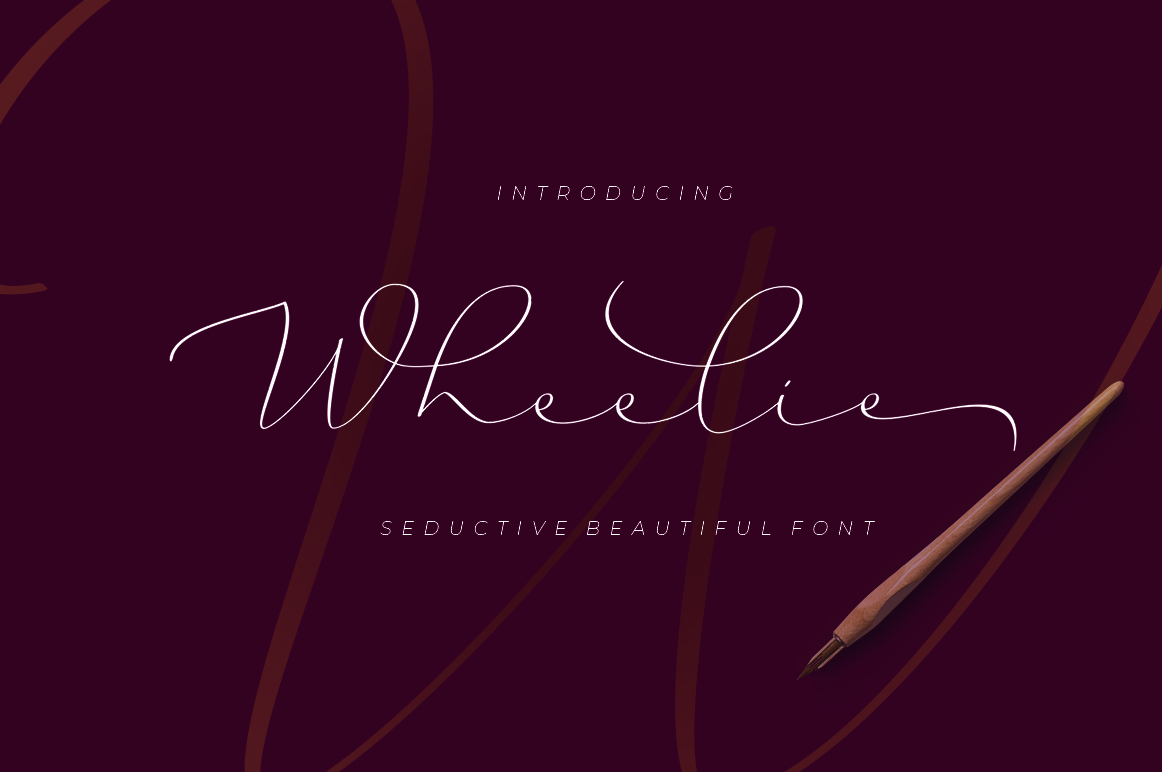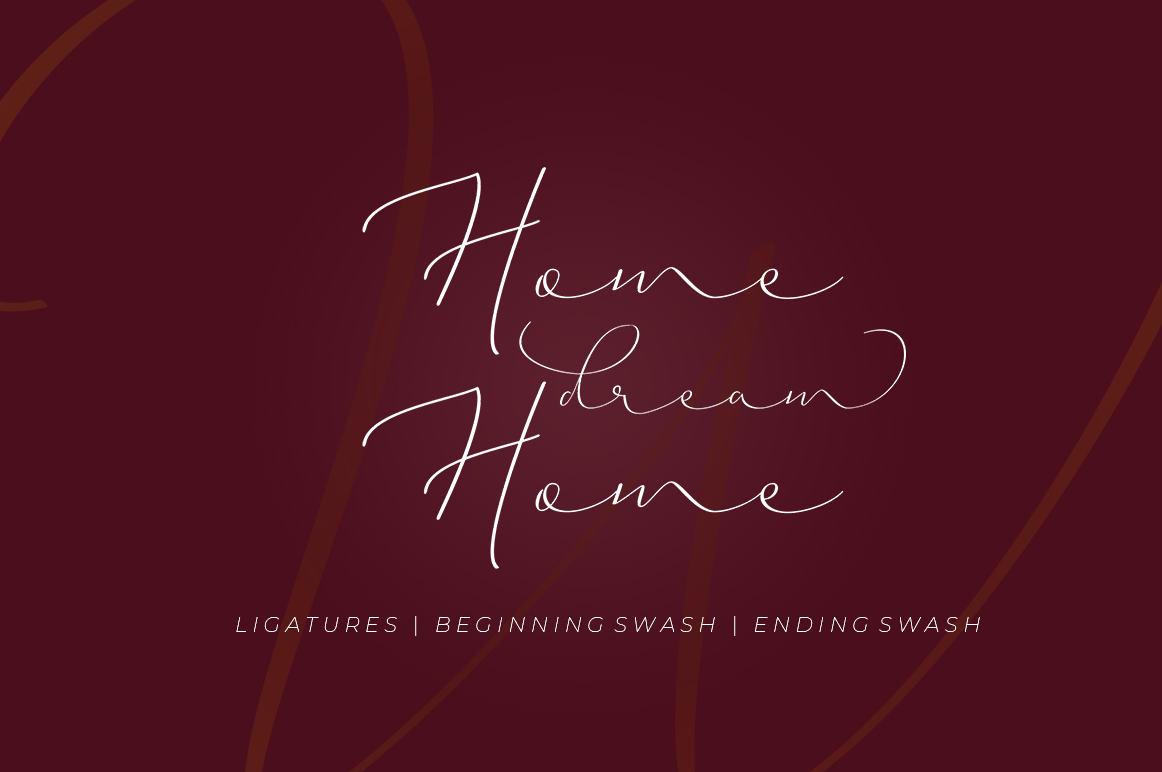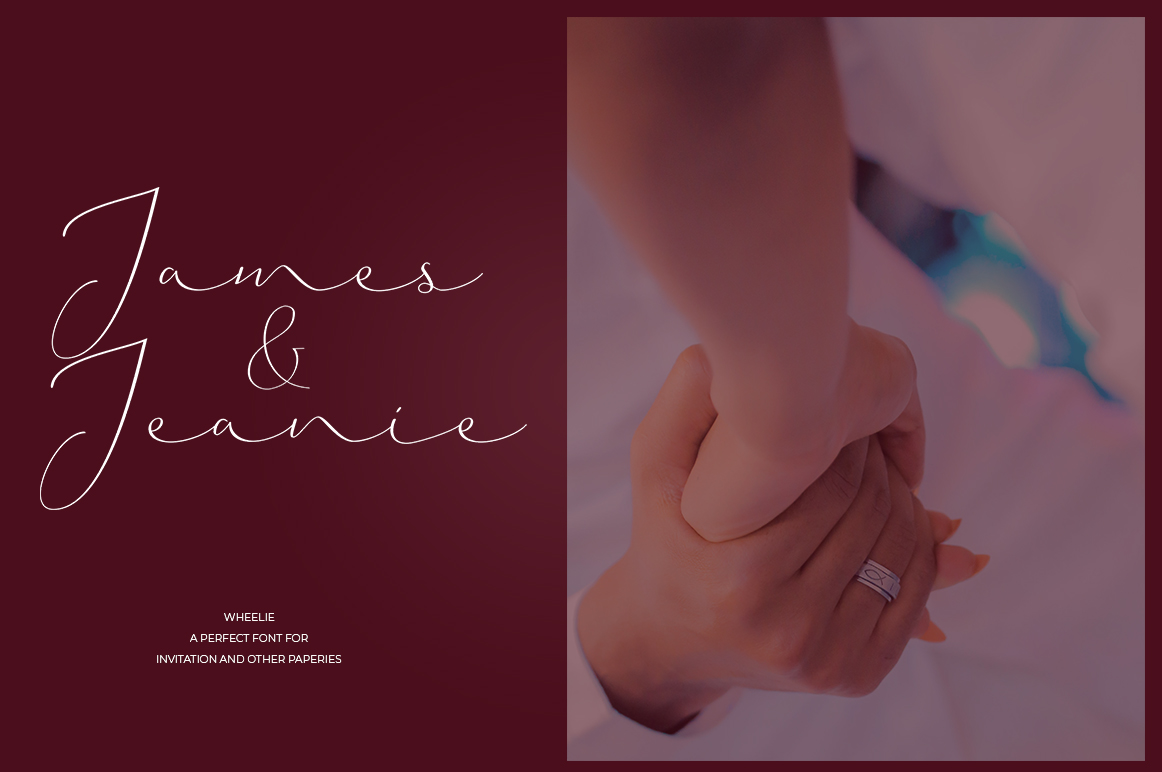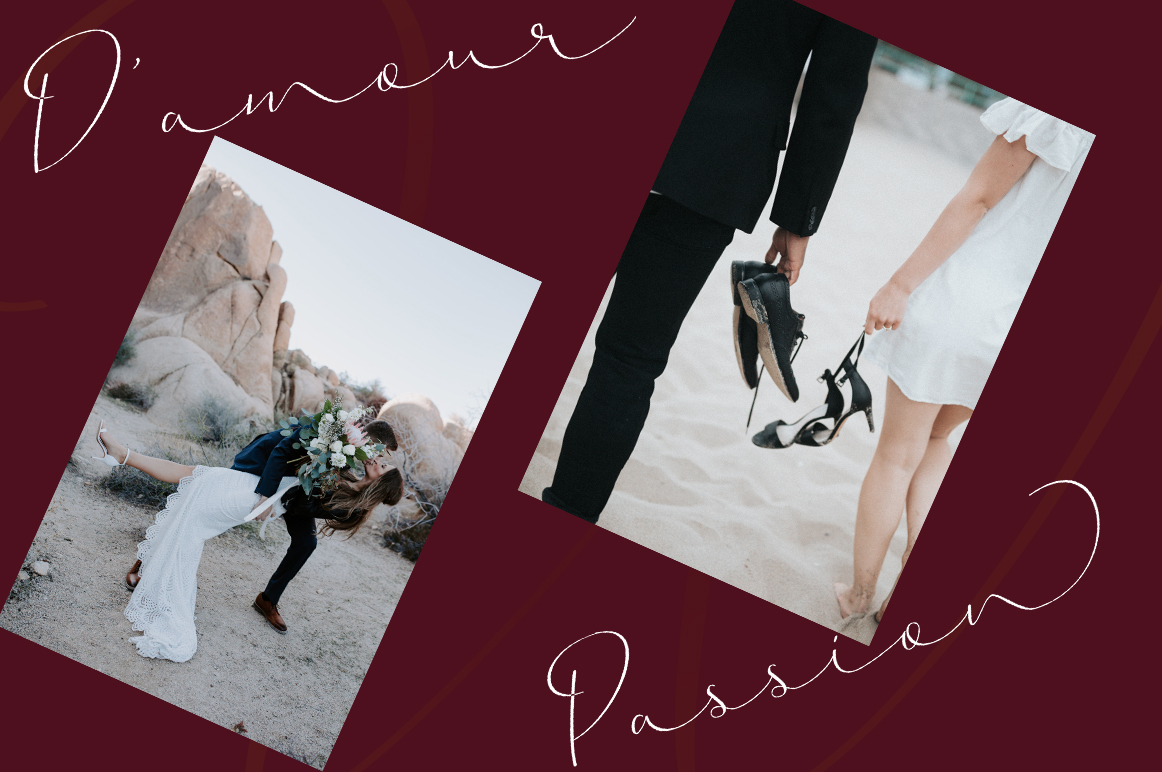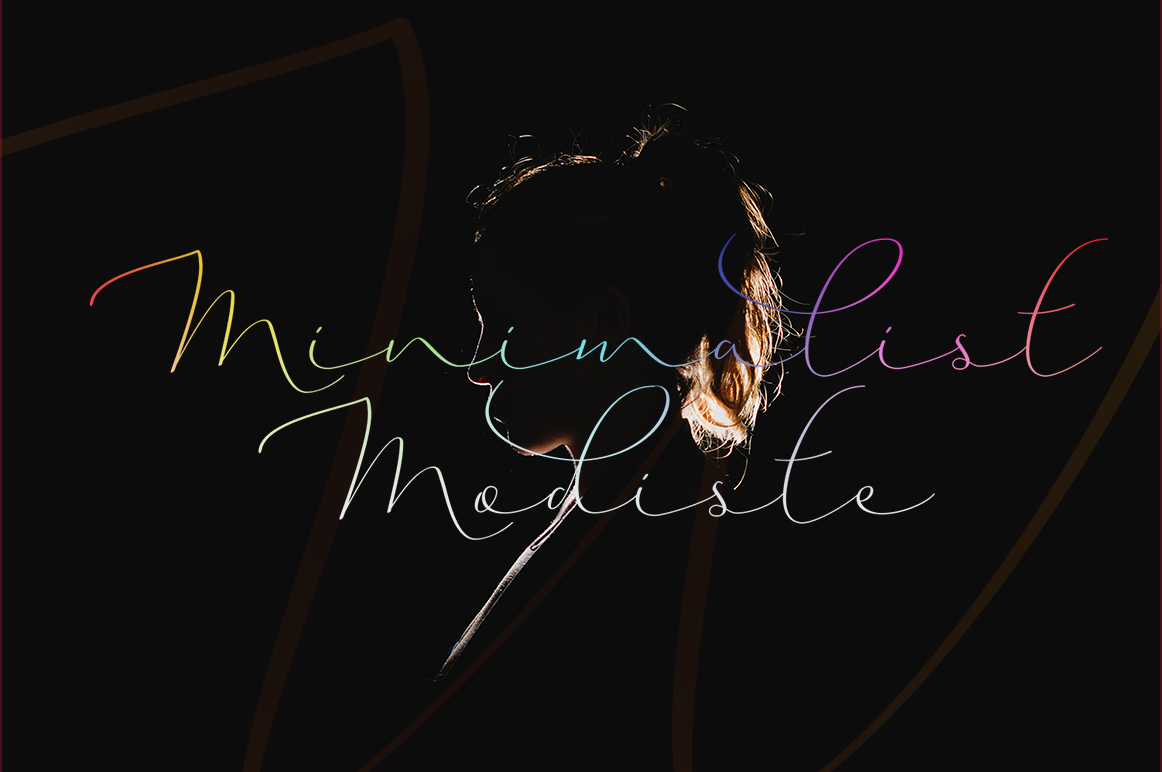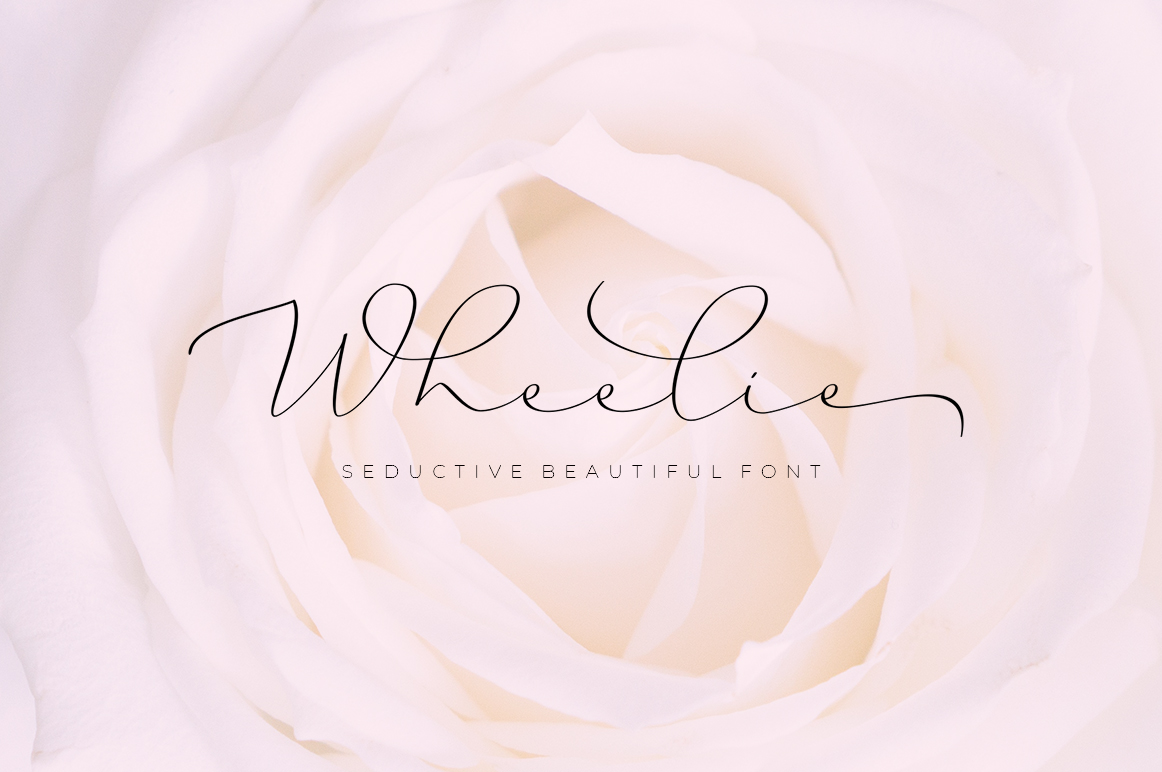
Wheelie Font
About Wheelie Font
Wheelie is a seductive font that is made with a touch of elegance and feeling to give a luxurious and elegant feel. This script font contains beginning and ending swashes meant to beautify your designs.